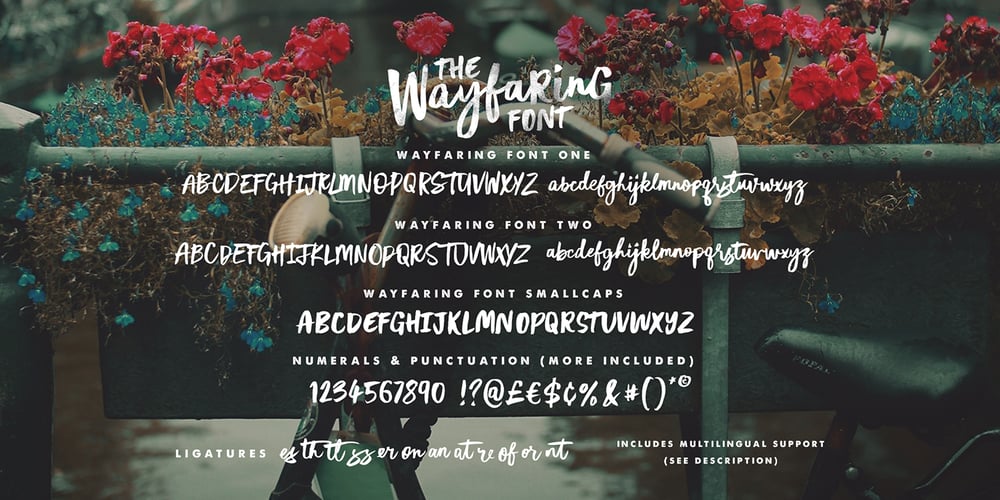
The Wayfaring Font Font Family was designed by Sam Parrett and published by Set Sail Studios. The Wayfaring Font contains 2 styles and family package options. Hey guys, I’m really excited to introduce The Wayfaring Font Duo! A hand-painted set of fonts designed to add a rustic and whimsical charm to your design projects. It’s rough around the edges and not without imperfections – but aren’t we all? With distinctive bold & playful brush strokes, The Wayfaring Font Duo is ideal for your logo designs, product packaging, wedding designs, book covers, social media posts, merchandise & more. The awesome thing about this typeface duo is that it’s so easy to mix up the various font styles and create totally unique, hand-made looking words each time. Not only are there 2 sets of upper & lowercase characters, there is also a unique ‘all-caps’ version – which not only looks great as a supporting font, but can also be combined with the regular Wayfaring font to give you even more layout options. I’m serious! Just throw a small-caps character in the middle of a word, it’s really fun to play around with.